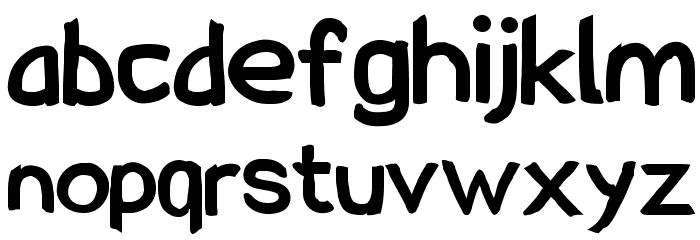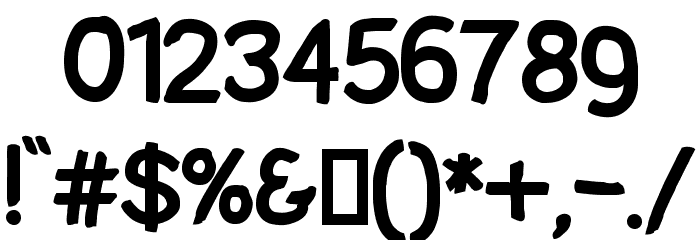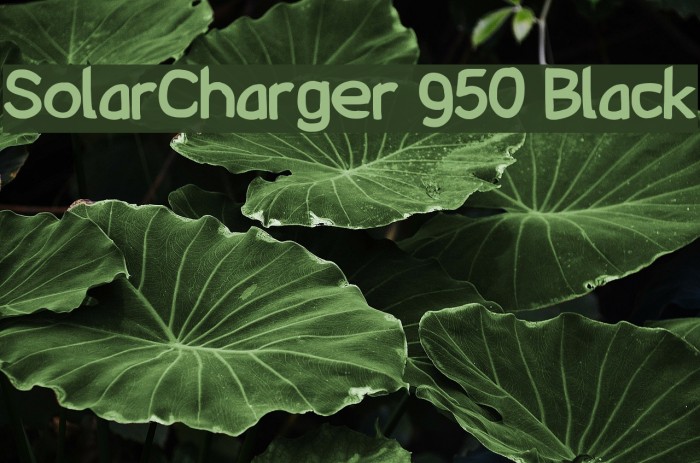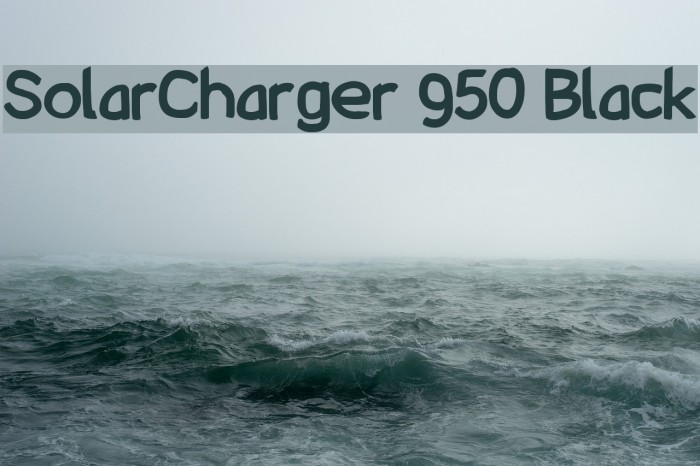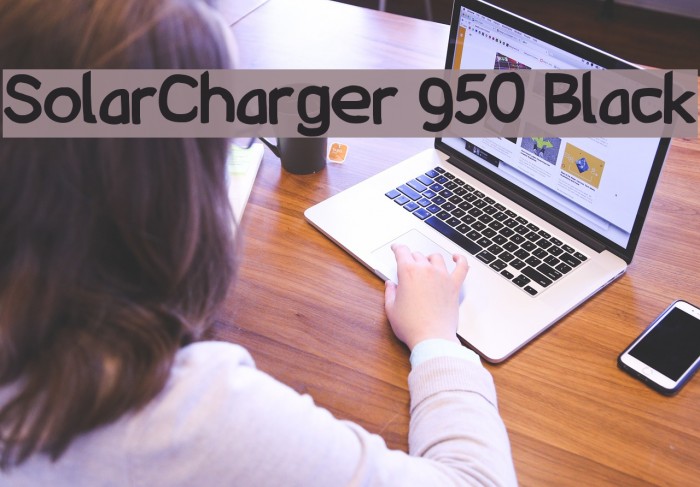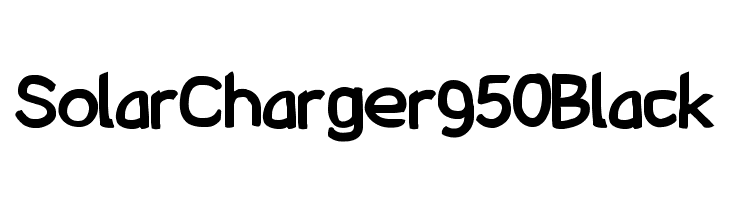
SolarCharger 950 Black Font
This font features a playful and bold design, characterized by its rounded edges and slightly irregular shapes. The uppercase letters are uniform in height, while the lowercase letters maintain a consistent baseline with a slight variation in size, adding a whimsical touch. The numerals are clear and bold, ensuring readability. Special characters are distinct and maintain the font's overall playful aesthetic. The font's style is approachable and friendly, making it suitable for informal and creative projects.
A playful, bold font with rounded edges and a whimsical style.
- Proposed Projects: Ideal for children's books, playful branding, casual invitations, and creative posters.
- Overall Style: Playful